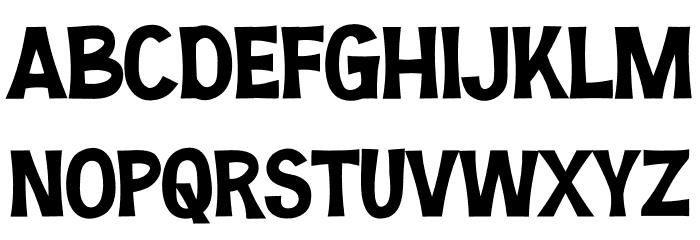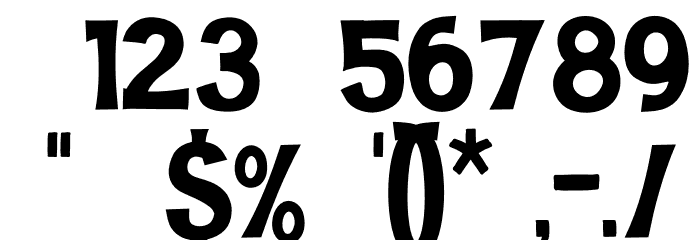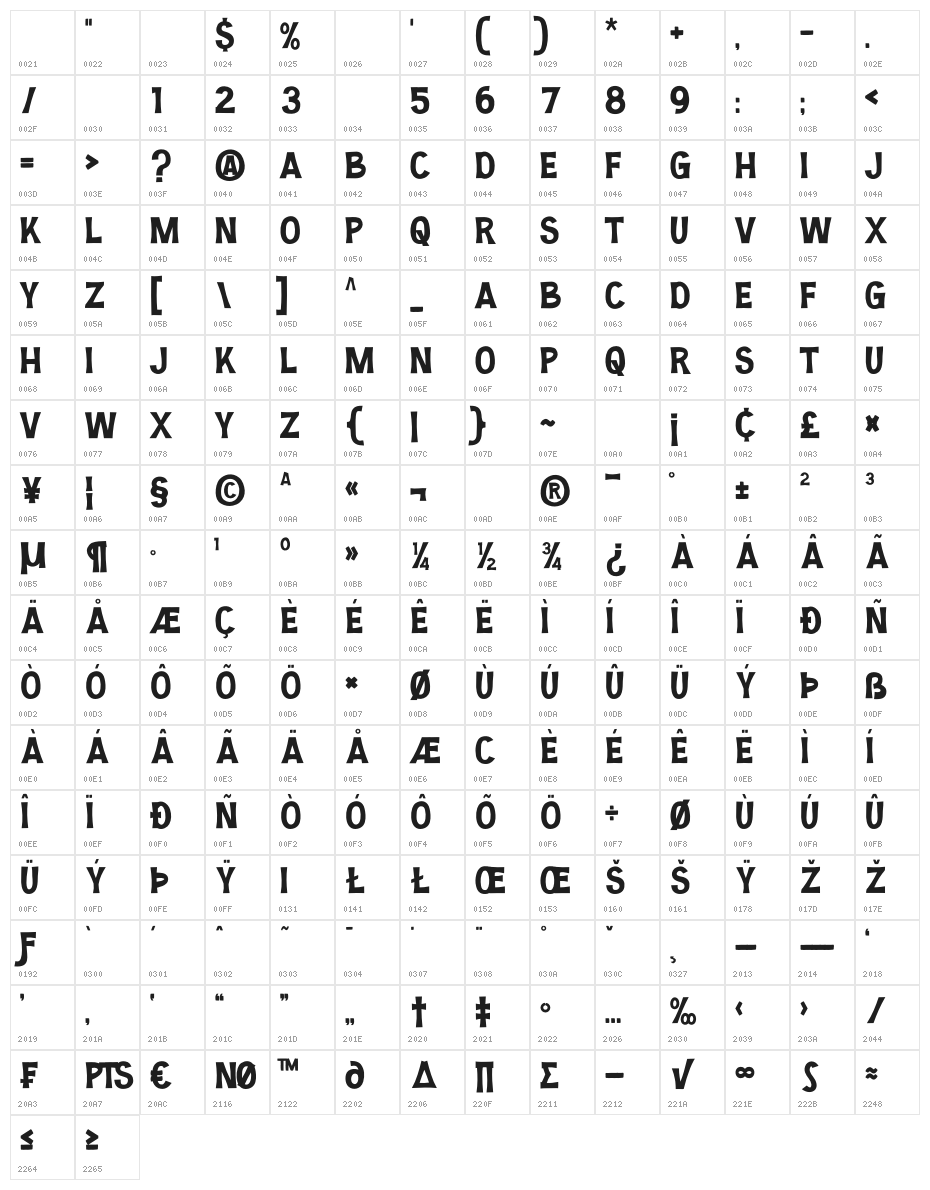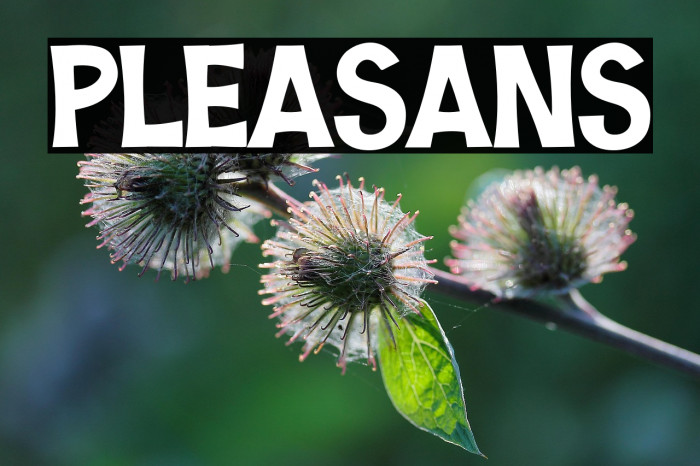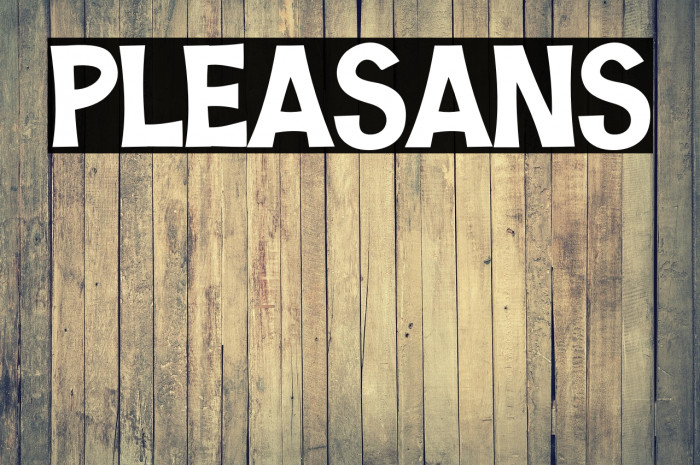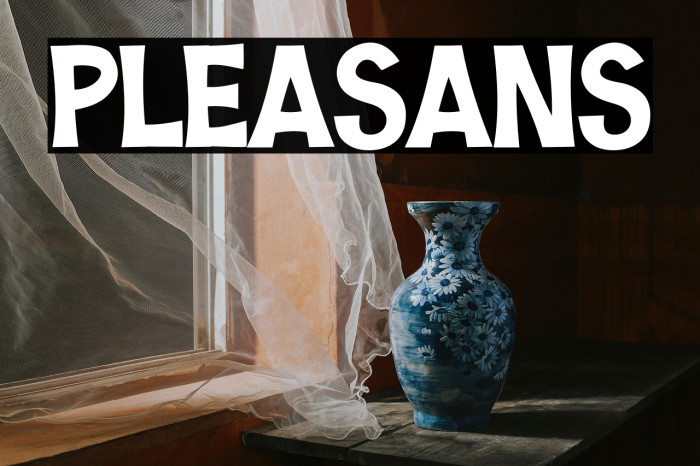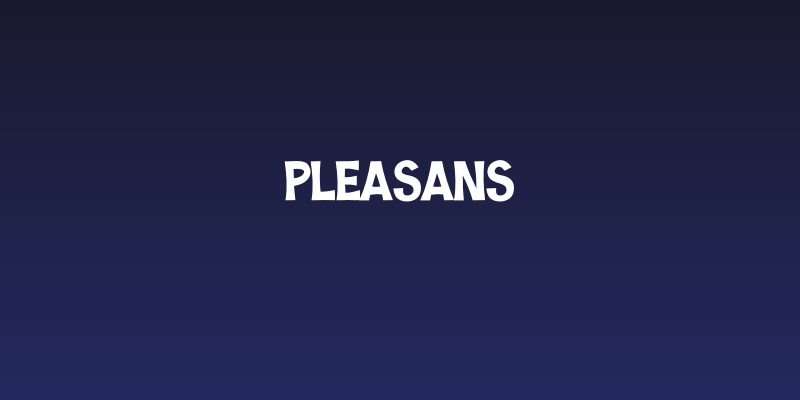
Pleasans Font
This font features a bold and playful style with exaggerated curves and a slightly uneven baseline, giving it a hand-drawn, whimsical appearance. The uppercase letters are robust and dynamic, while the lowercase letters maintain a consistent style, enhancing readability. The numbers and special characters follow the same playful design, making them suitable for creative projects. The overall look is both fun and impactful, ideal for capturing attention.
- Font: Pleasans
- Proposed Projects: Ideal for children's books, playful branding, posters, and creative invitations.
- Overall Style: Playful, Whimsical
- Use Case: Headlines, Posters, Branding